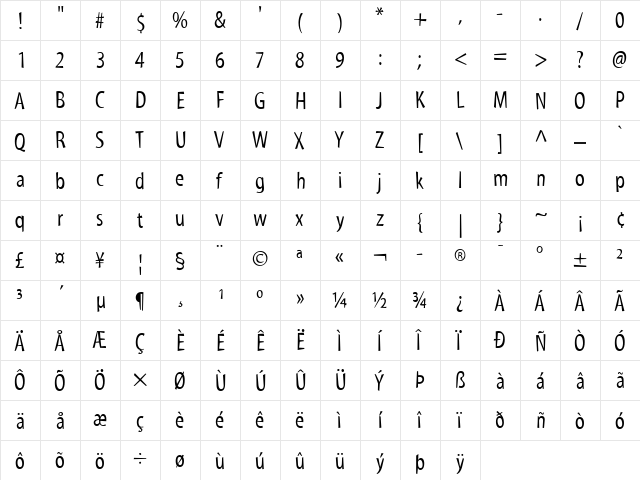
Myriad Tilt Regular
Design Context for Myriad Tilt Typeface
Myriad Tilt offers clean, dependable letterforms without strong stylistic allegiance, making it a practical choice for designers who need flexibility.
Pro Tip: Use Myriad Tilt in both headline and body roles to test its range before committing to a single application.